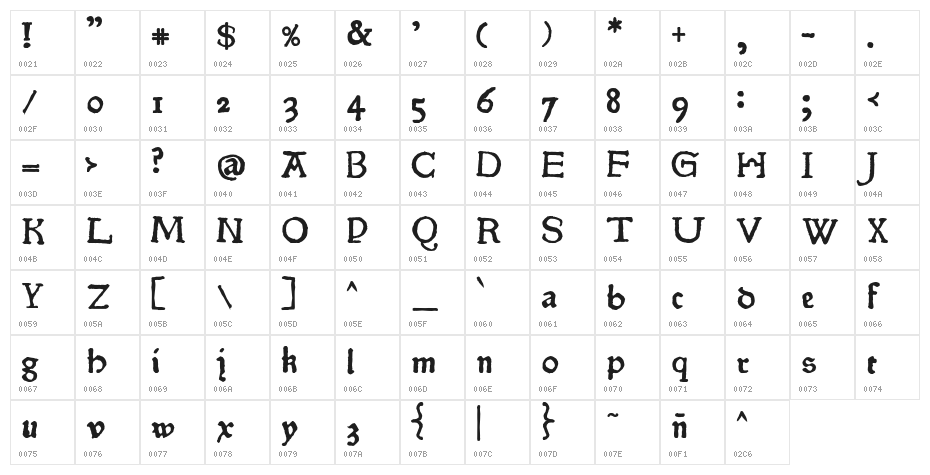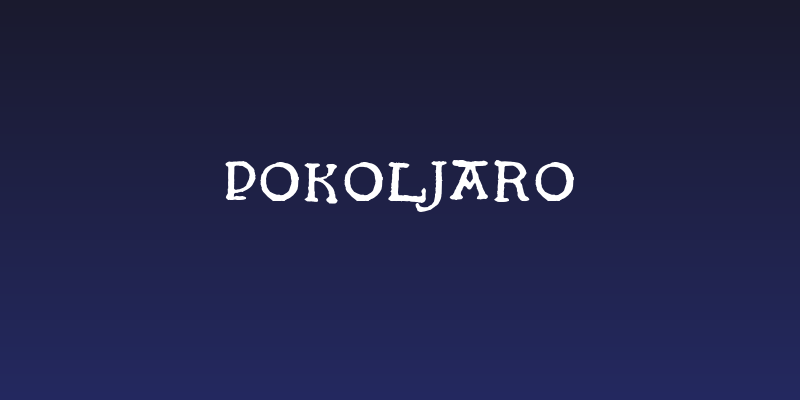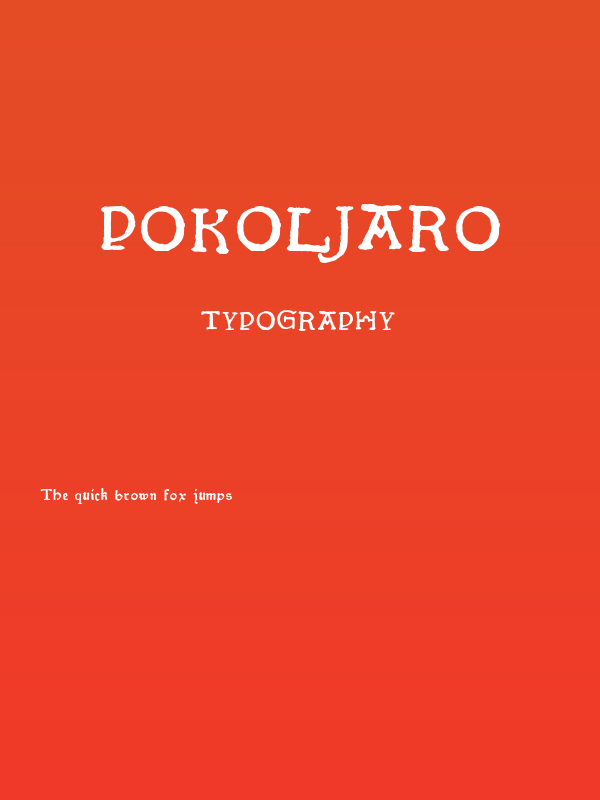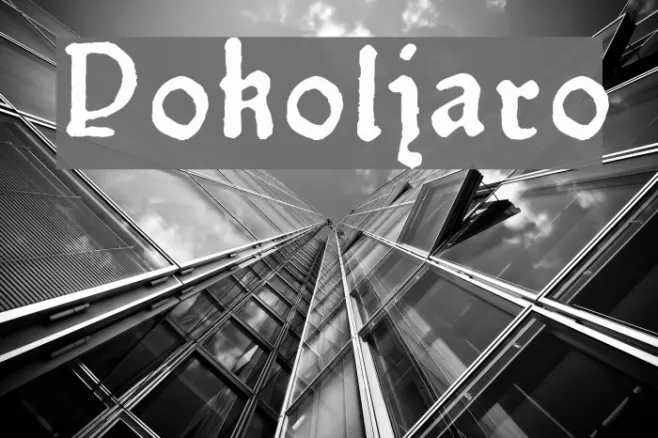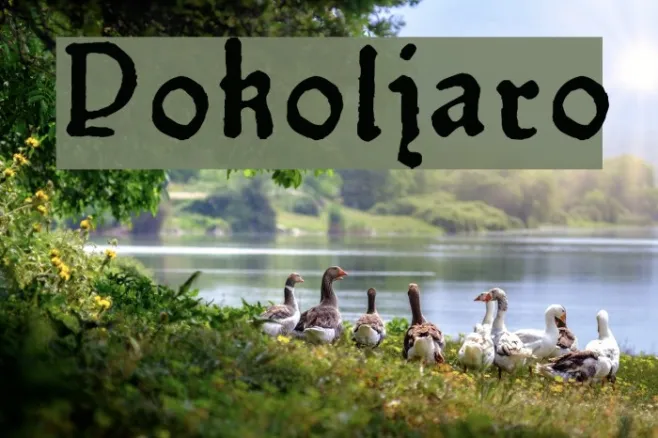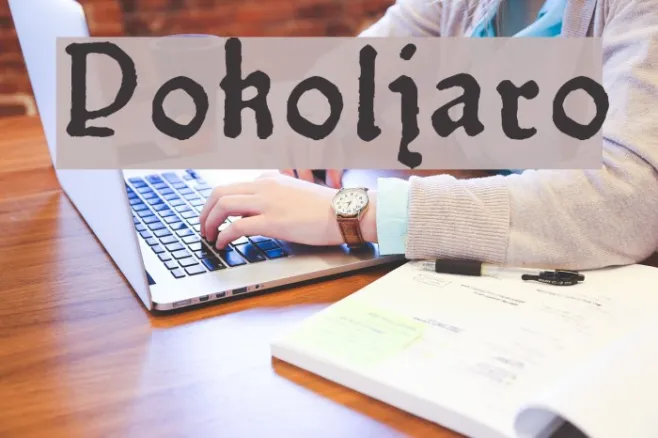
Pokoljaro Font
Pokoljaro Description
This font exhibits a distinctive, hand-drawn style with a rustic and slightly uneven appearance, reminiscent of historical or medieval script. The uppercase letters are bold and slightly condensed, with unique serifs that give them a handcrafted feel. The lowercase letters maintain this artisanal quality, with some characters featuring exaggerated curves and strokes. The numerals and special characters continue this theme, offering a cohesive look across all glyphs. The overall texture is rough, adding to its vintage charm, making it suitable for projects that require an old-world or historical aesthetic.
| Proposed Projects | Ideal for historical-themed designs, fantasy book covers, medieval event posters, or any project seeking an old-world charm. |